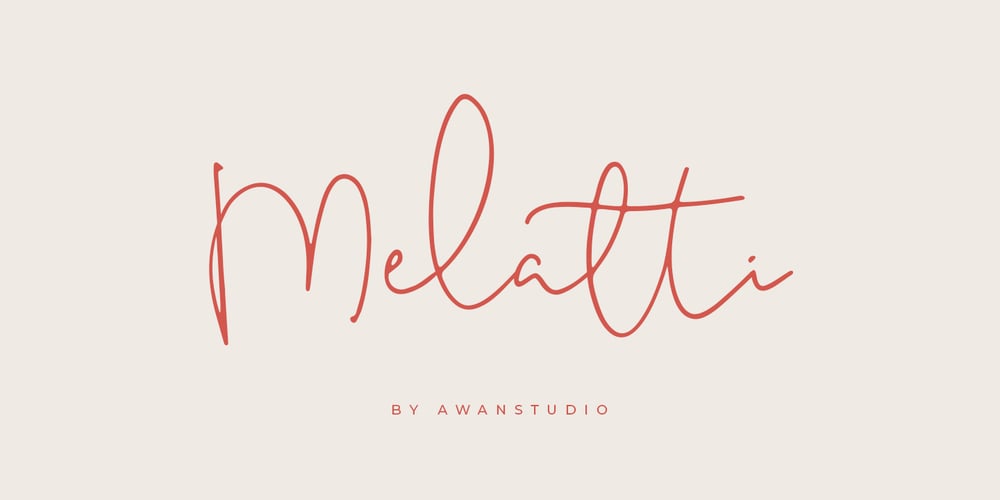
Melatti Font Family was designed by Awan Setiawan and published by Awanstudio. Melatti contains 1 styles and family package options. Melatti allows you to create stunning and easy hand-lettering in an instant. Ideal for the logo, quotes, wedding, product label/packaging, fashion, letter, advertising, invitation, poster, merchandise, greeting cards, etc.